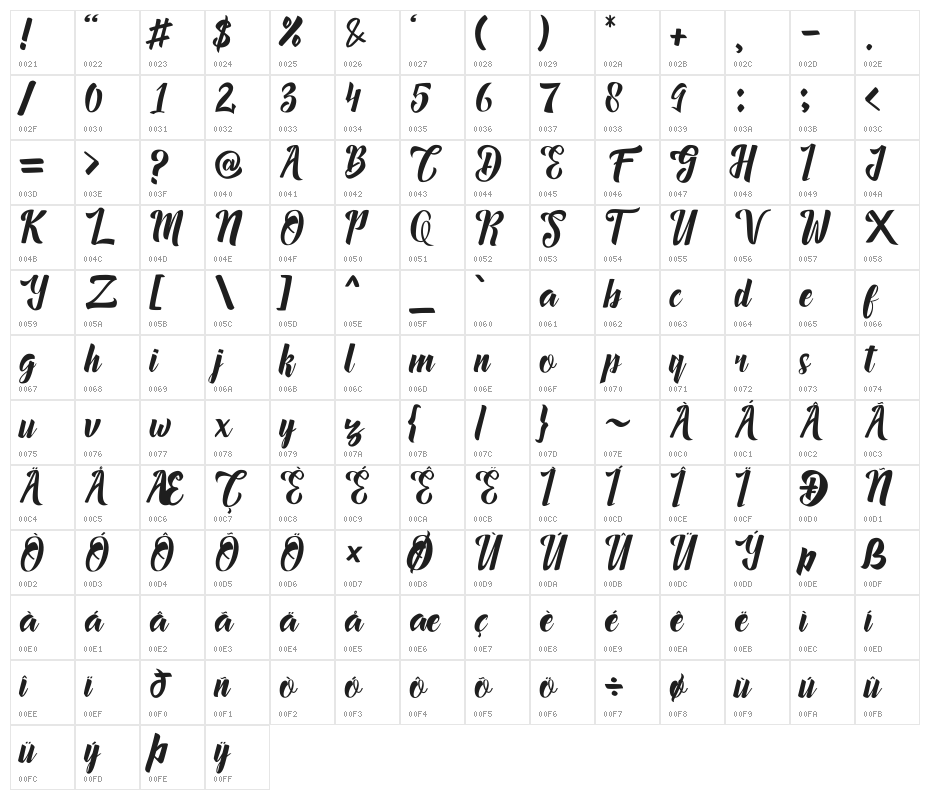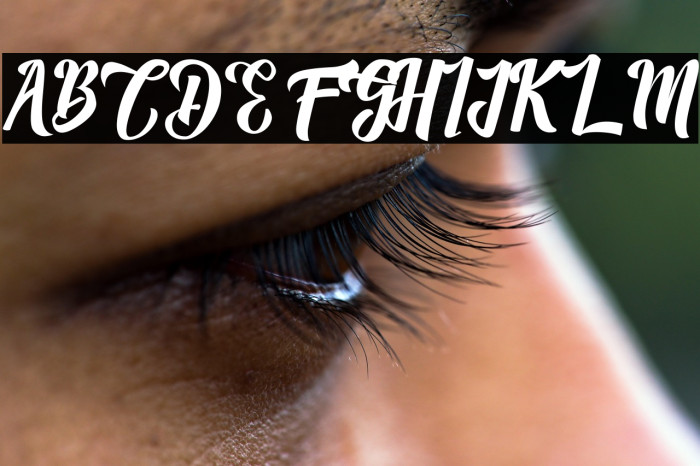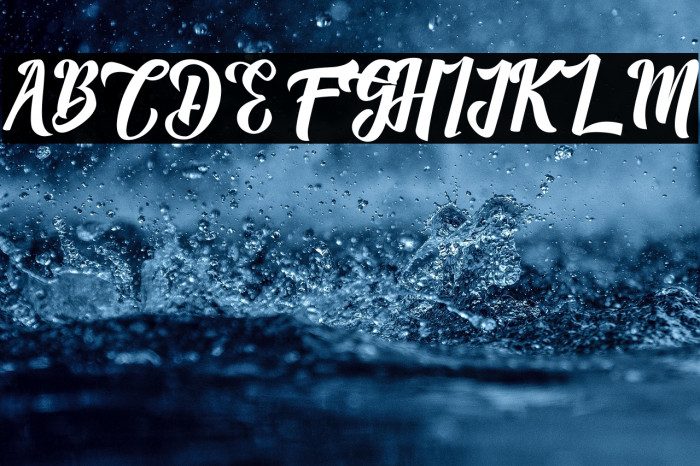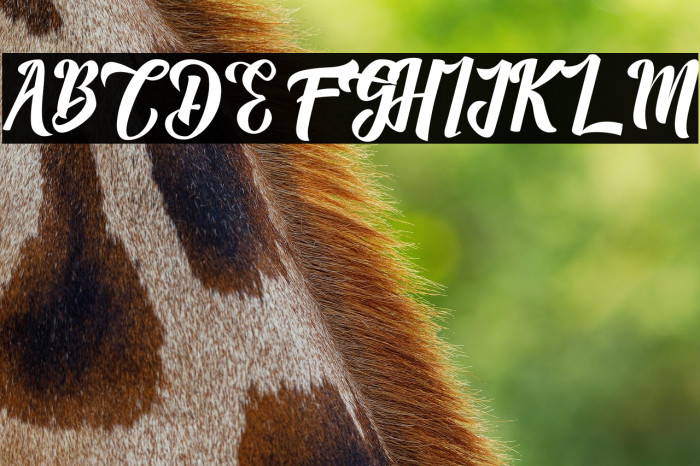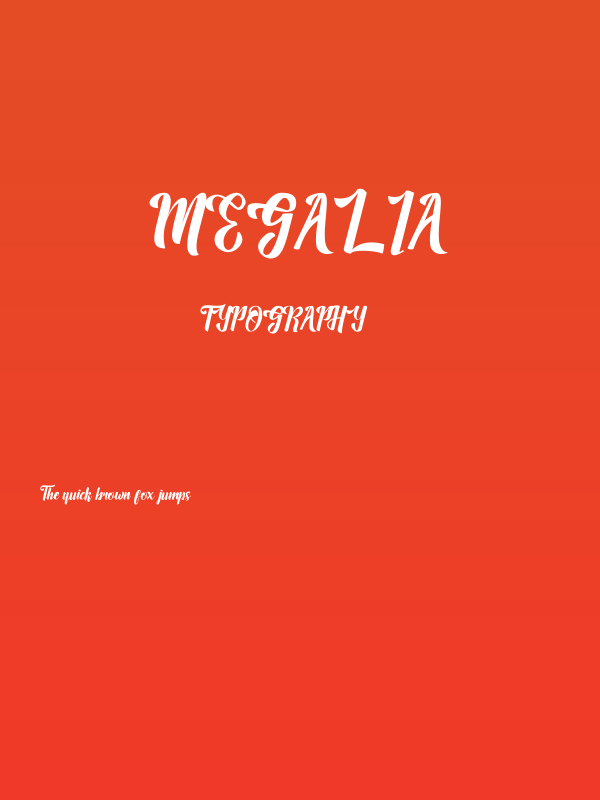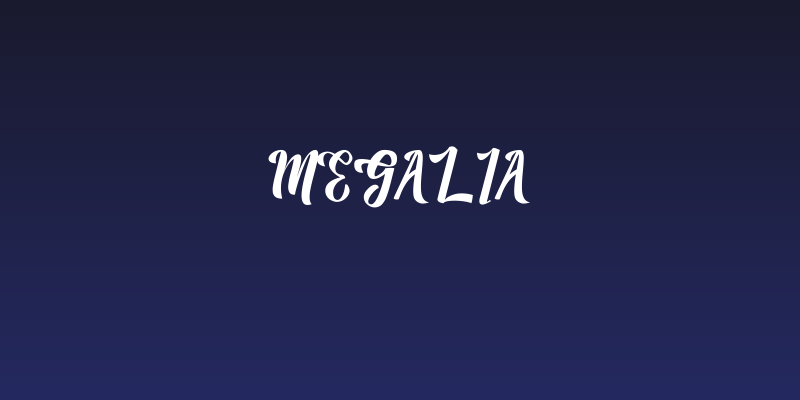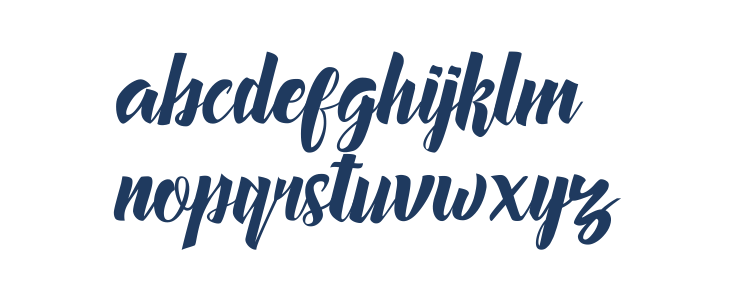
Megalia Font
Megalia Description
This font features a bold and expressive script style, characterized by its fluid and dynamic strokes. The uppercase letters exhibit a strong presence with their sweeping curves and elegant flourishes, while the lowercase letters maintain a cohesive flow, enhancing readability. The numerals are equally bold, ensuring they stand out in any design. Special characters are crafted with the same attention to detail, adding a touch of sophistication. The overall design exudes a sense of modern elegance, making it suitable for a variety of creative projects.
| Proposed Projects | Ideal for branding, invitations, logos, and decorative headlines. |